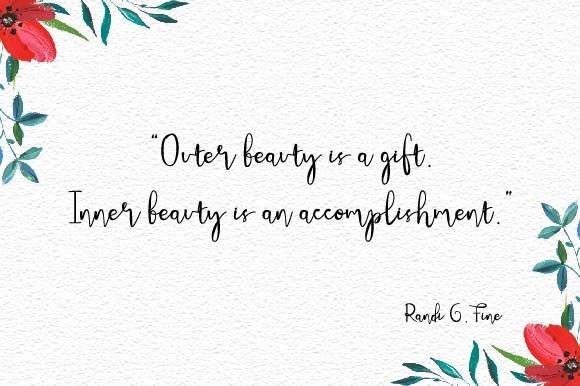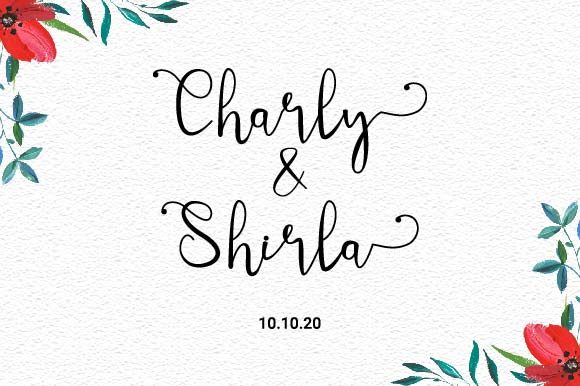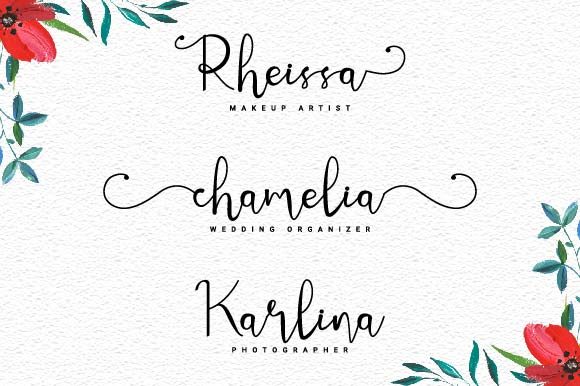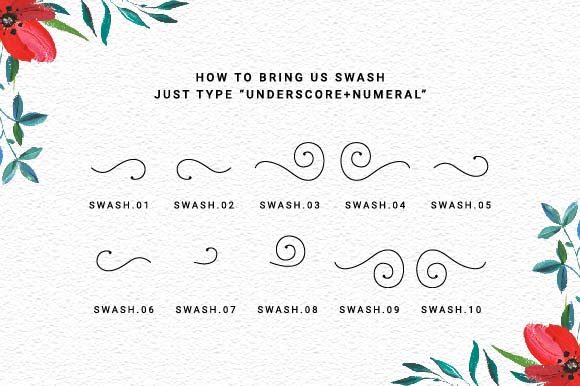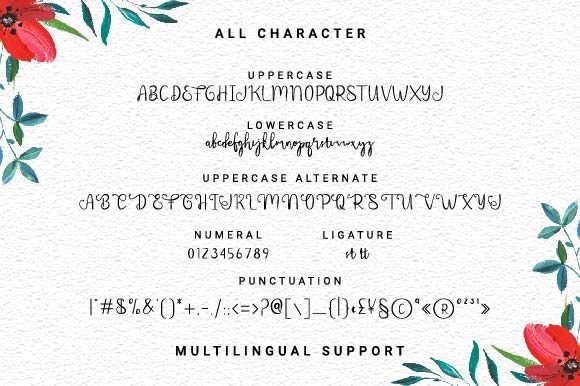
Introduction to Meltinghones Font
As a designer, have you ever stared at a blank page, trying to spark inspiration for your next creative project? For me, it’s often the discovery of a new font that sets the wheels turning. Recently, I stumbled upon the enchanting Meltinghones Font, a natural, simple, and distinct handwritten font that has been captivating designers with its casual, yet elegant touch.
With its versatility in application, from logos and wedding invitations to headings and t-shirts, the Meltinghones Font is a valuable resource for any designer looking to add a touch of sophistication to their work. Whether you’re working on a high-quality design project or simply need a free download to spice up your social media graphics, this font is sure to deliver.
What sets the Meltinghones Font apart is its ability to seamlessly integrate with a transparent background, making it perfect for creating visually striking designs. In this article, we’ll delve into the world of this captivating font and explore its many uses and benefits.
Key Features of Meltinghones Font
- High-quality design resource suitable for creative projects, offering a unique and modern aesthetic.
- Features a transparent background, allowing for seamless integration with any design element or background.
- Designed with a focus on creativity and experimentation, making it an ideal choice for innovative and artistic projects.
Honest Review: Meltinghones Font
I recently had the chance to dive into the world of typography with the Meltinghones Font, and I must say, it’s been a wild ride. This font is a game-changer for any creative project that needs a touch of sophistication and elegance.
What works well: ✨ The high-quality design of the Meltinghones Font is truly impressive. It’s perfect for any project that requires a sleek and modern aesthetic. The font is highly versatile and can be used for a wide range of applications, from logos to advertisements.
However, there are some limitations to consider: ⚠️ The font can be a bit overwhelming in large quantities, and the subtle curves can sometimes be difficult to read at smaller sizes.
Overall, the Meltinghones Font is an excellent addition to any design resource library. Its high-quality design and versatility make it a must-have for any creative project. With a little finesse and planning, this font can elevate your design to new heights.
Tips for Getting the Most Out of Meltinghones Font
To get the most out of the Meltinghones Font, be sure to use it in conjunction with other high-quality design resources. You can also experiment with different font sizes and colors to create a unique and eye-catching visual identity.
The Meltinghones Font is a versatile design resource that can be used in a variety of creative projects, including branding, advertising, and digital media. Its unique and eye-catching design makes it a popular choice for designers looking to add a touch of sophistication to their work.
Q: Does the Meltinghones Font have a transparent background?
Yes, the Meltinghones Font has a transparent background, making it ideal for designs that require a clean and minimalist look. This feature allows you to easily combine the font with other design elements or backgrounds, giving you more creative freedom in your projects.